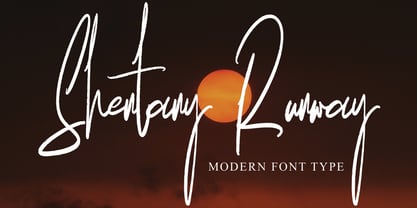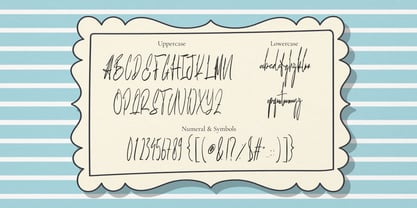
Shenthany Runway
by madjack.font
The Shenthany Runway Font Family was designed by Zaki Muhammad and published by madjack.font. Shenthany Runway contains 1 styles. More about this family
"Shenthany Runway" is a sophisticated and modern font designed to enhance the elegance of invitations, wedding themes, and fashion branding. With its smooth strokes and delicate curves, this font strikes the perfect balance between classic calligraphy and contemporary style. It's ideal for adding a touch of luxury to event stationery, branding materials, and editorial designs. Its versatility makes it suitable for everything from formal wedding invitations to chic fashion lookbooks, giving each project a distinctive and timeless appeal.
- Complete alphabet with uppercase and lowercase letters A-Z for script
- Numbers for all fonts
- Punctuation and symbols for all fonts
- Script lowercase alternatives
- Script lowercase ligatures
- Multilingual support for all fonts
Designers: Zaki Muhammad
Foundry: madjack.font